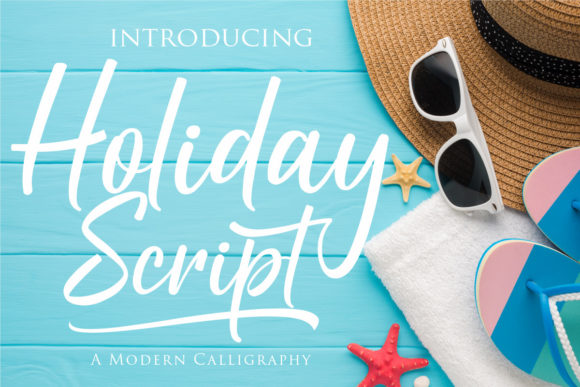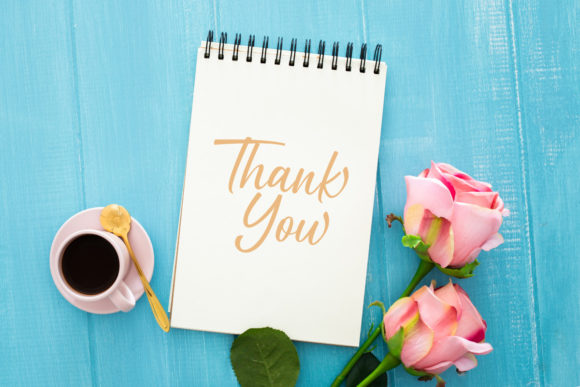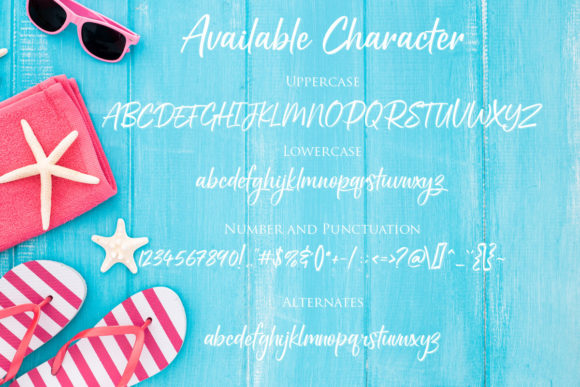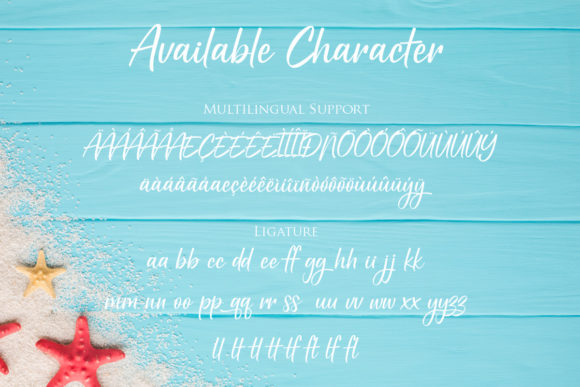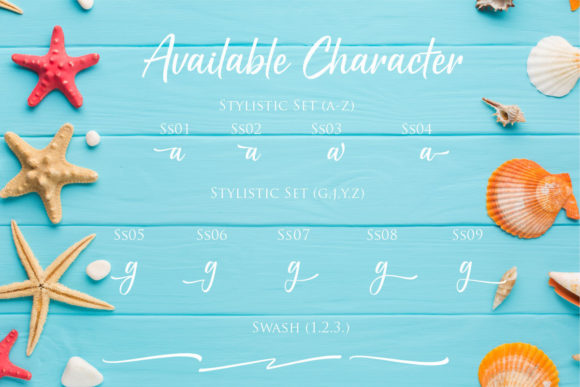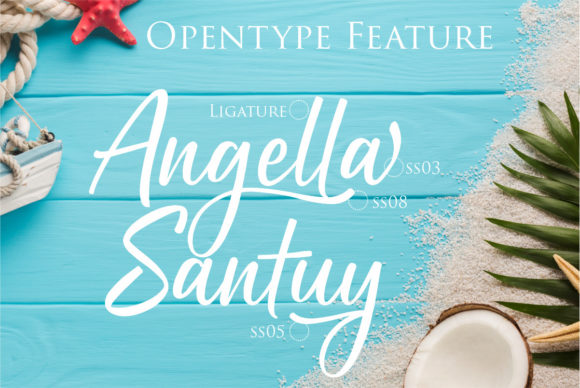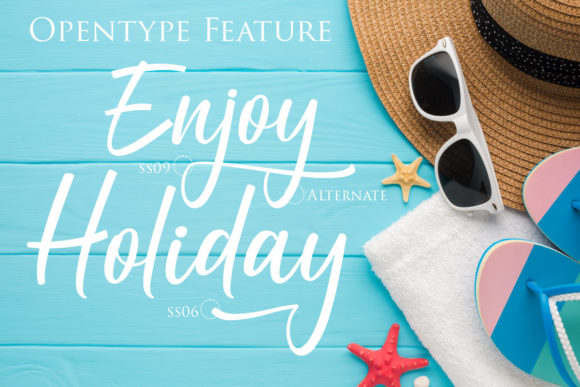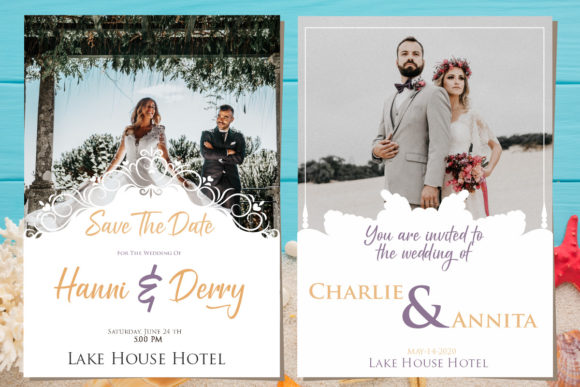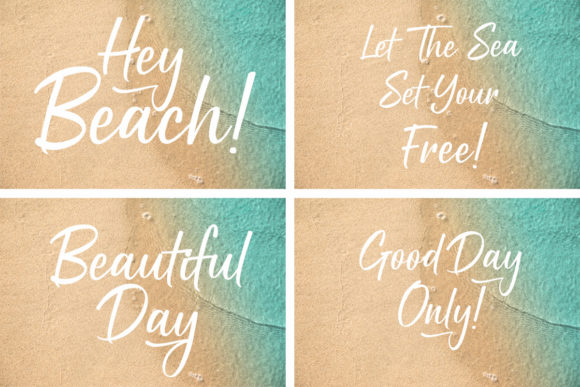
About Holiday Font
Holiday is a stunning and elegant handwritten font that brings a timeless and sophisticated touch to any design project. With its graceful letterforms and flowing strokes, it adds a sense of beauty and personalization to your designs.
This font is particularly well-suited for projects that require a personalized and romantic style. Whether you’re creating wedding invitations, thank you cards, or greeting cards, Holiday adds a touch of elegance and charm to your messages. Its handwritten appearance gives a sense of warmth and sincerity, making your designs feel more intimate and heartfelt.
The versatility of Holiday extends beyond wedding-related designs. It can be used for various other purposes, such as branding projects, logos, and packaging designs. Its timeless and elegant style ensures that it remains captivating and impactful across different design contexts.
One notable feature of Holiday is its PUA encoding, which allows easy access to all the glyphs and swashes. This means you can effortlessly customize and enhance your designs with a wide range of decorative elements, ligatures, and alternate characters that come with the font. This opens up endless possibilities for creating unique and eye-catching designs.
Holiday’s versatility, elegance, and personal touch make it a valuable asset for designers who want to create memorable and refined visuals. Its timeless appeal ensures that it will stand the test of time and continue to add a touch of sophistication to your designs for years to come.